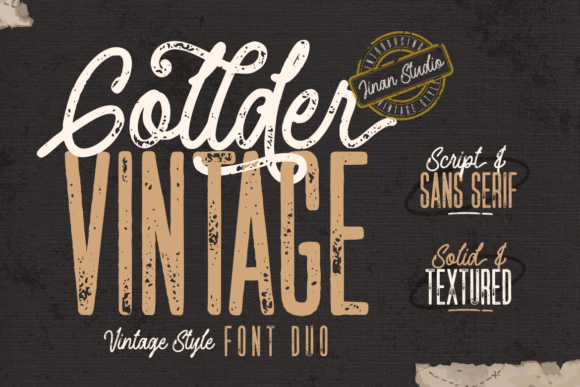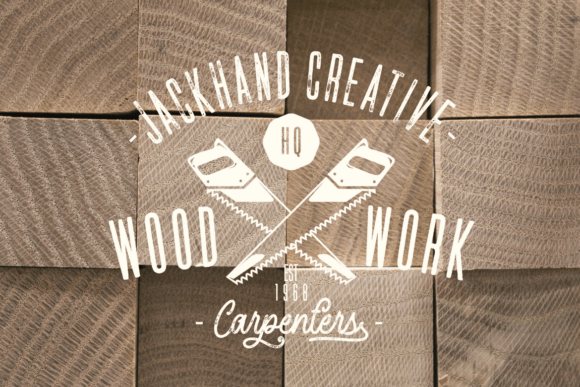
Gollder Vintage Duo Font
Presenting the Gollder Vintage Font Duo, an exceptional pick for those embarking on ventures in logo creation, branding, packaging design, and business card creation, not to mention it is a perfect match for adventure-themed projects.
Its distinctive blend of script and sans serif styles, coupled with textured and solid variations, bestows a world of artistic possibilities for designers seeking to create visually arresting identities and promotional materials. To liven up your work even more, type j_1 through to j_9 to use feature swashes – when using any OpenType-enabled software, ligatures will automatically substitute the regular letter pairs wherever possible, elevating the aesthetics of your design.